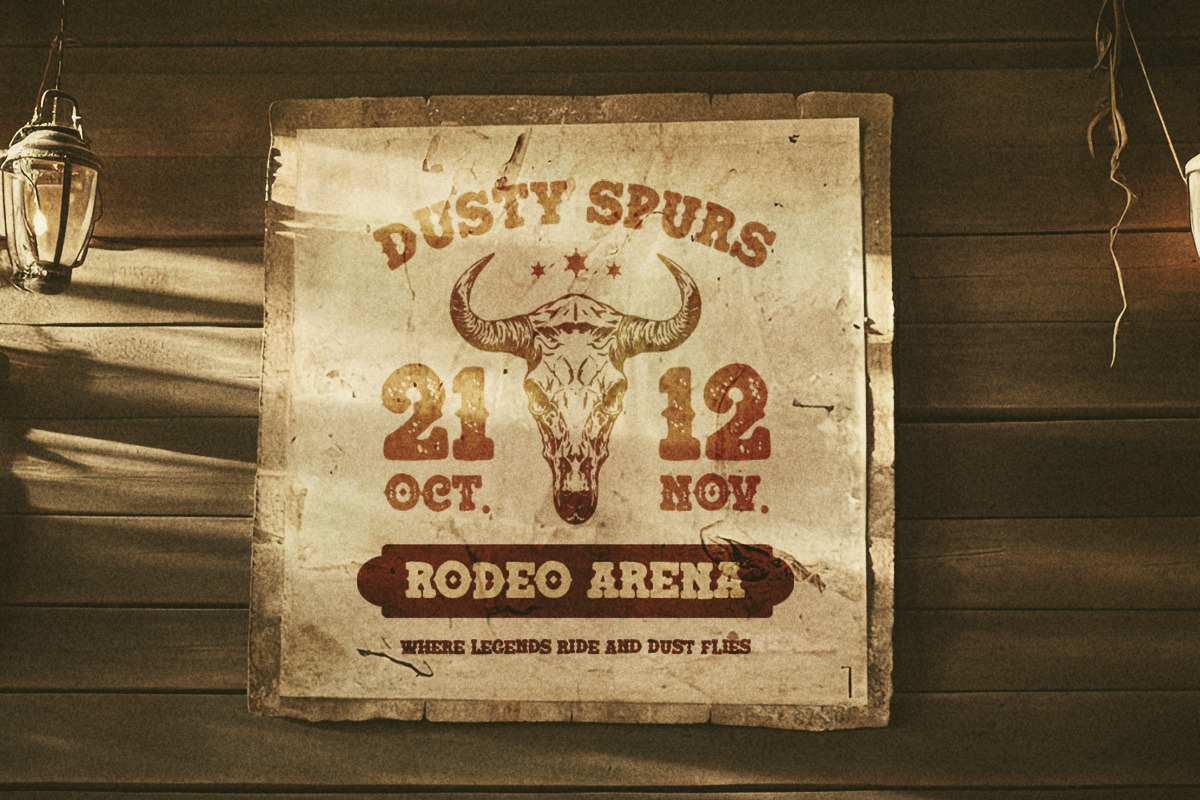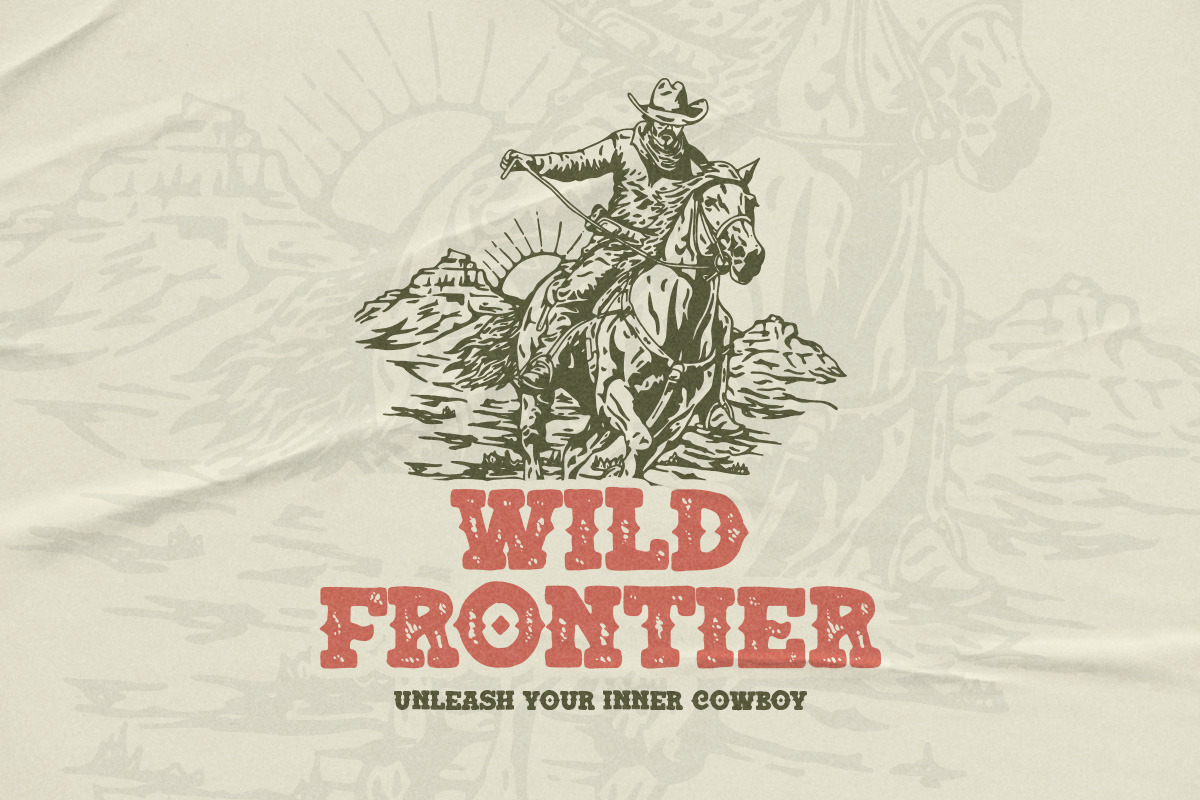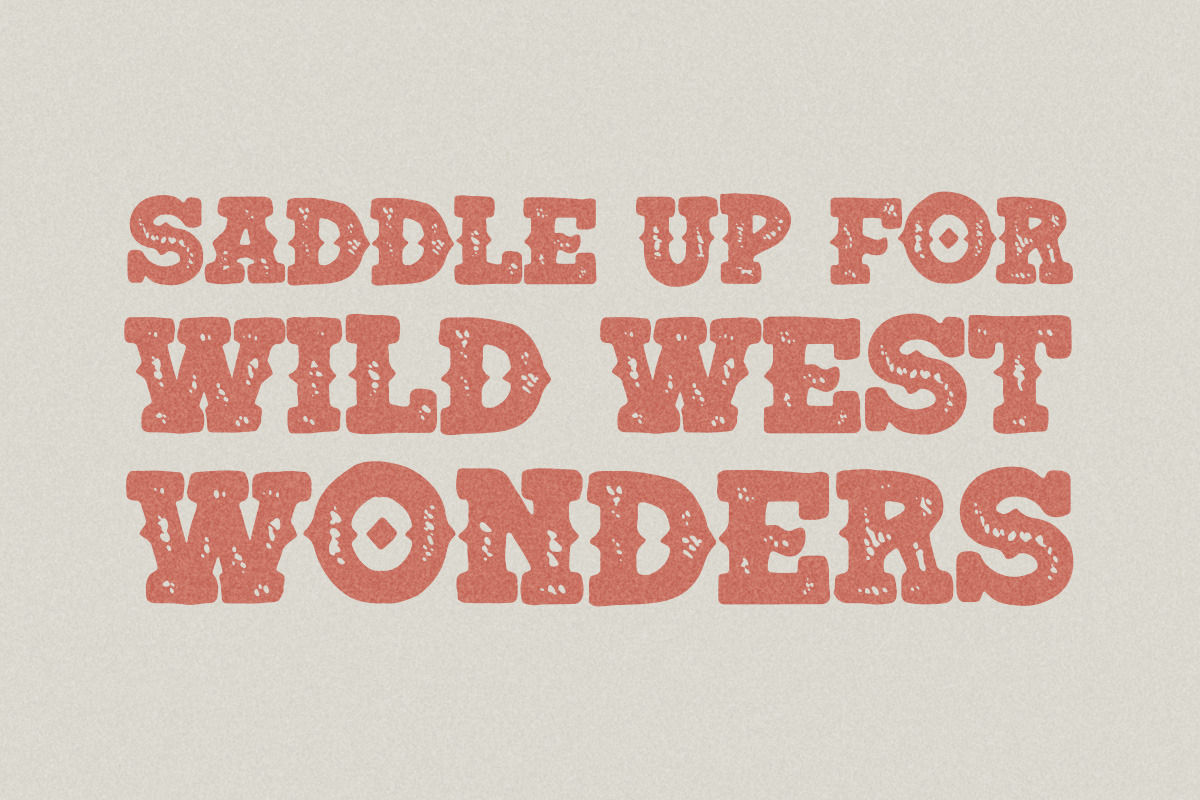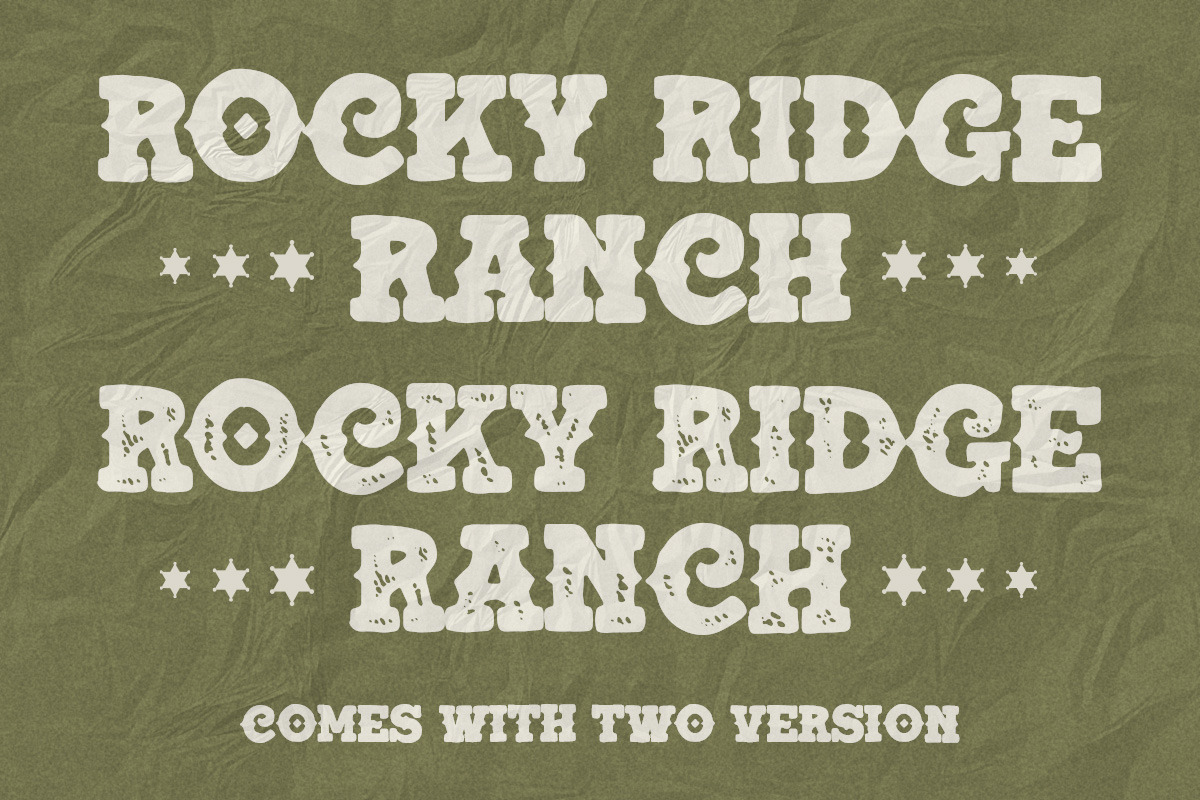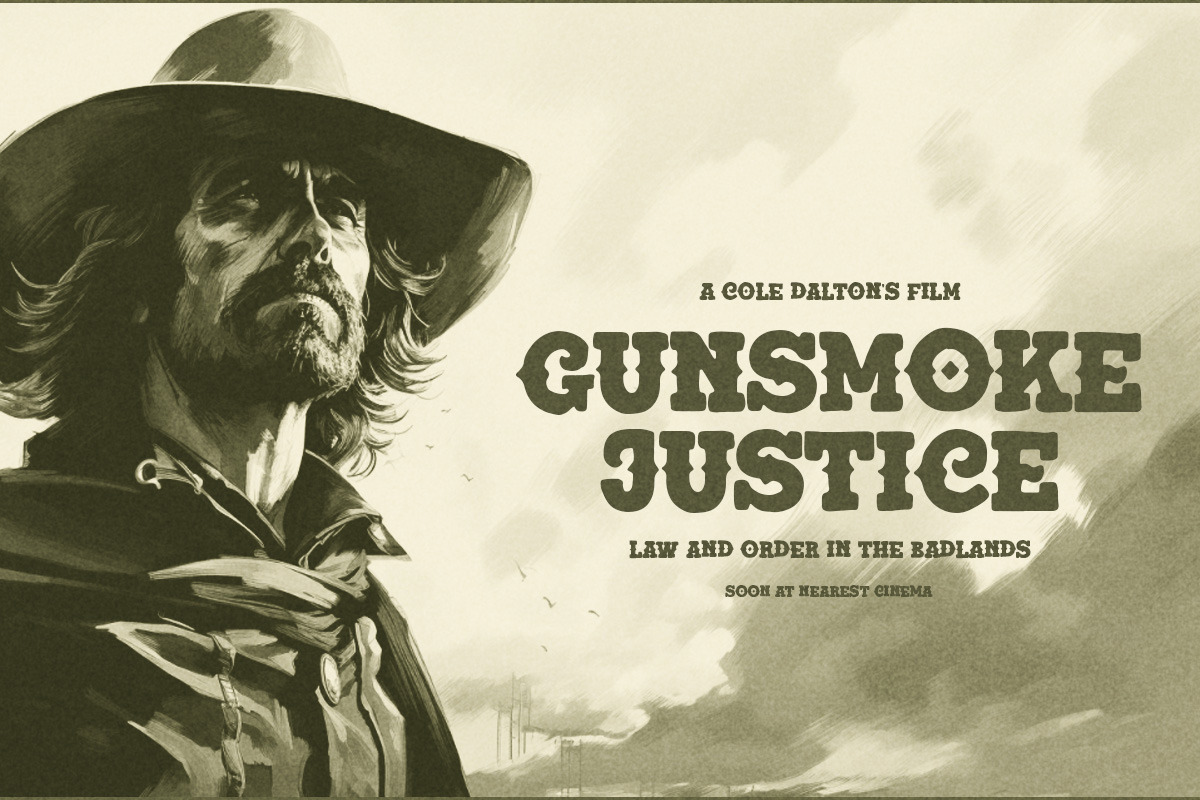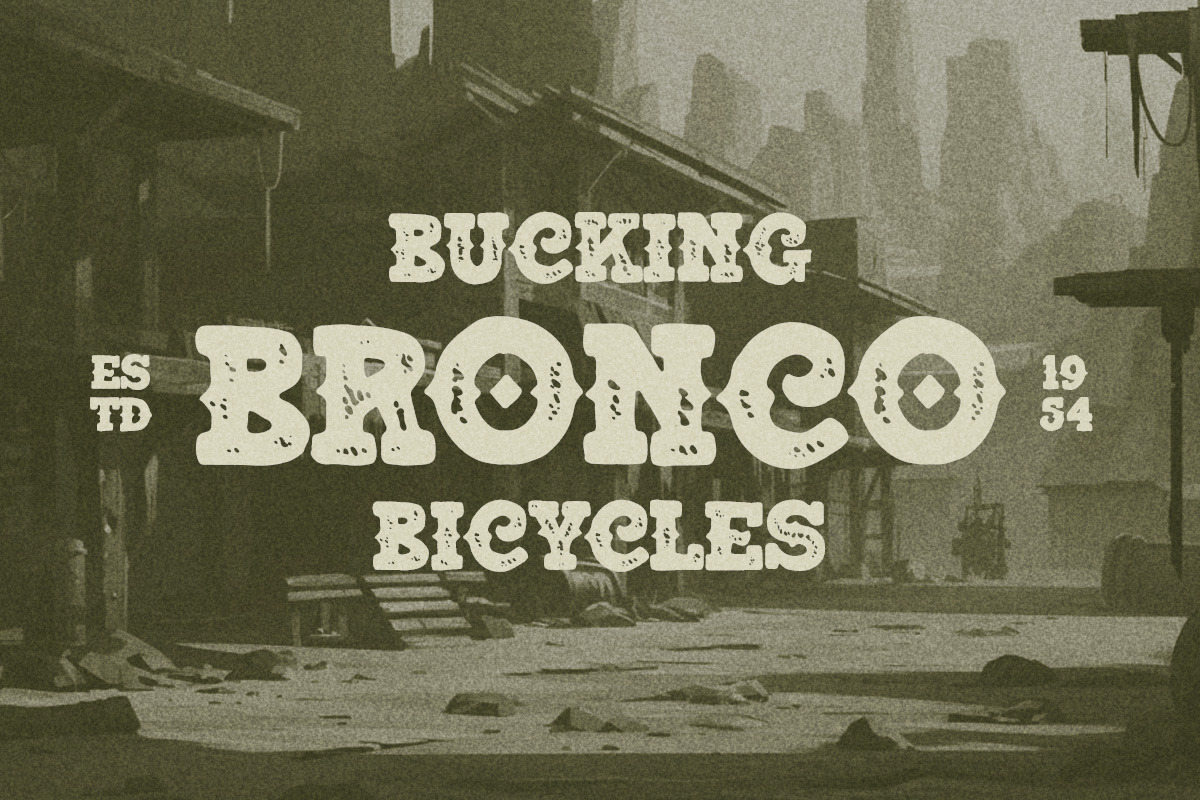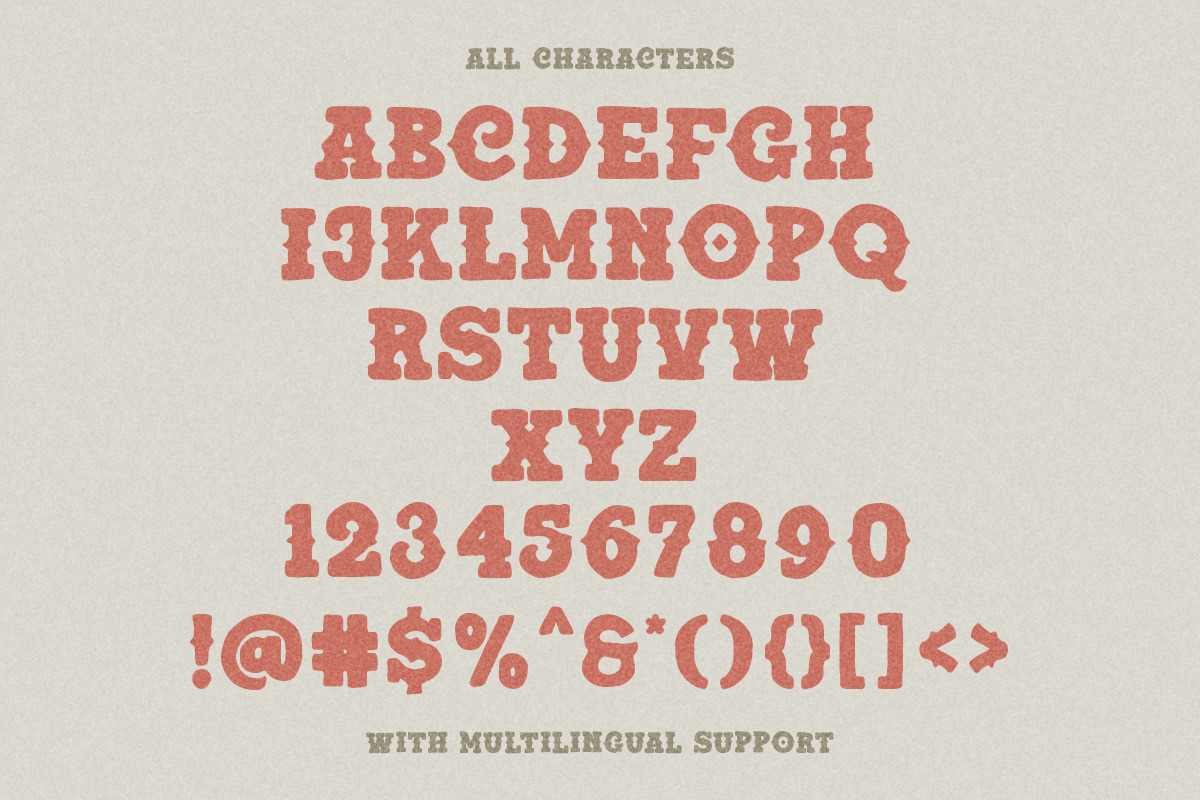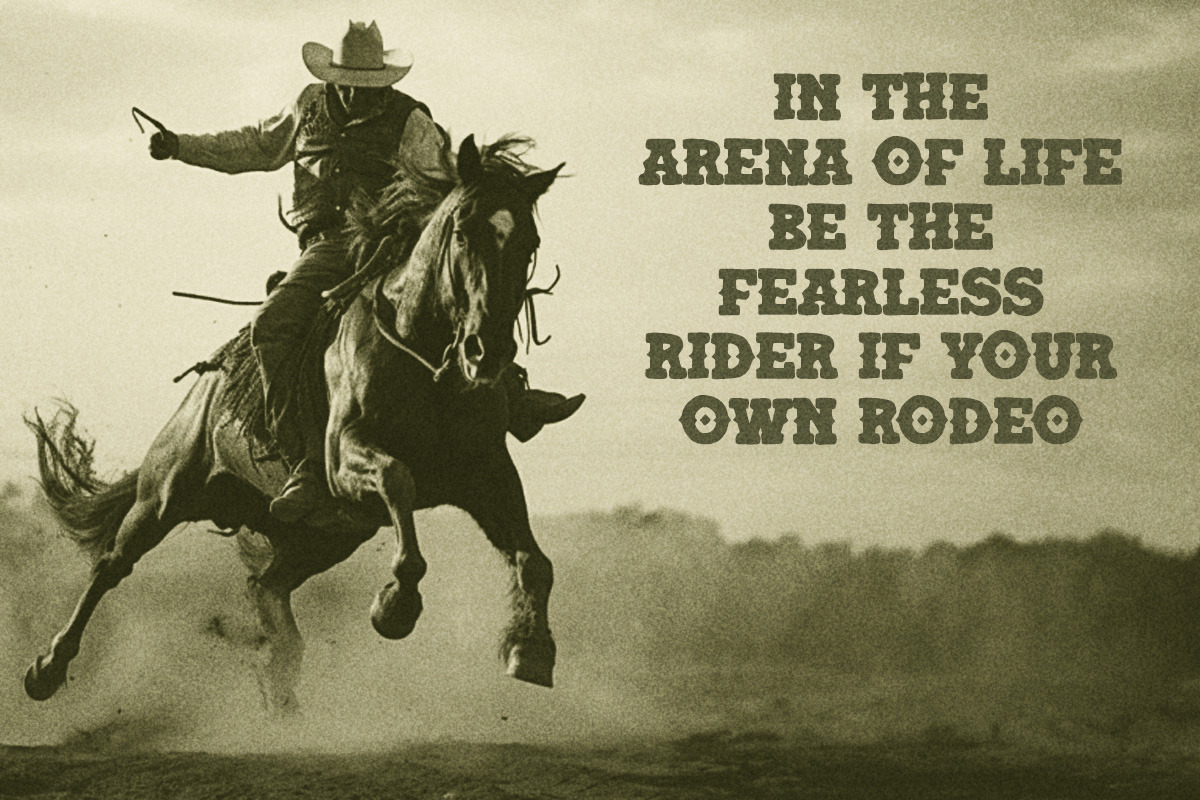
South Canyon
Saddle up and embrace the untamed spirit of the Wild West with South Canyon, a captivating display font inspired by fearless cowboys and rugged landscapes. With its bold and distinctive letterforms, South Canyon brings an authentic and powerful presence to your designs. Choose between the regular version for a perfect balance of legibility and boldness or the stamp version for a vintage, weathered look. Additionally, enjoy three high detailed illustrations that perfectly capture the essence of the Wild West. Let South Canyon transport you to a world of adventure, freedom, and cowboy charm.